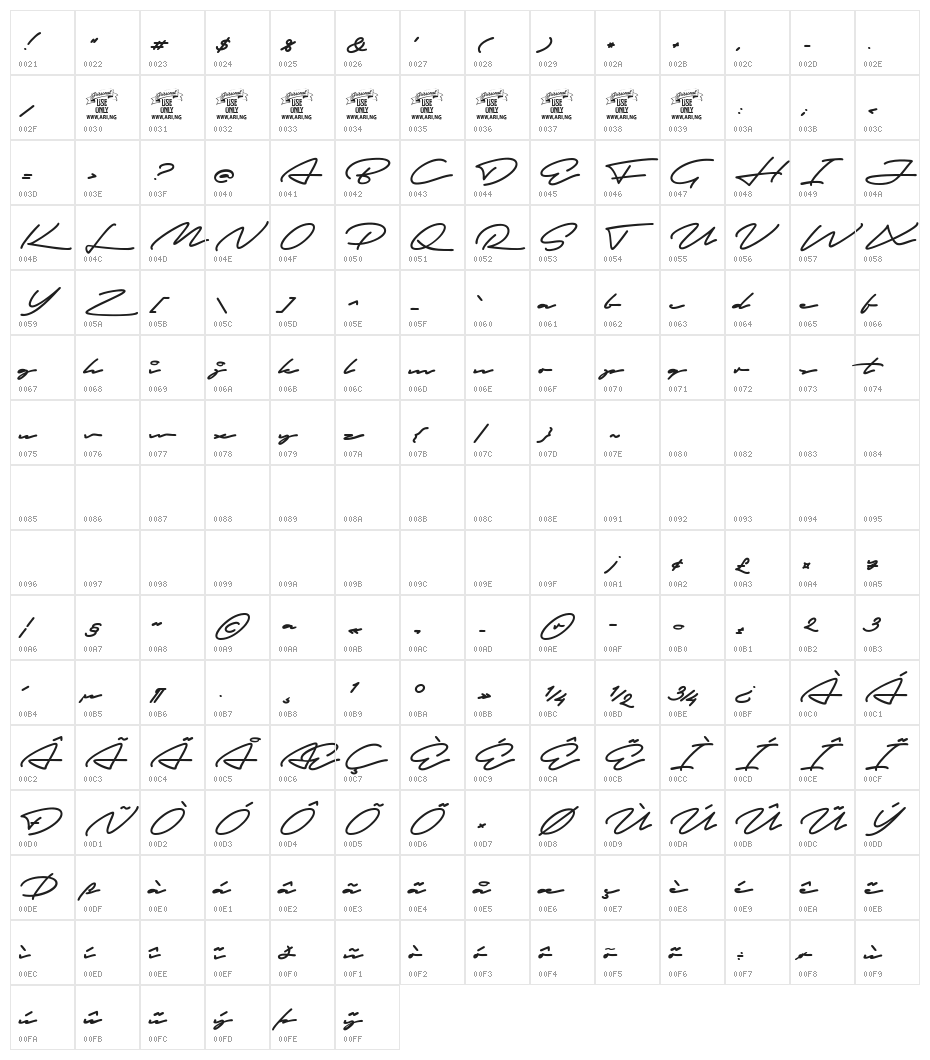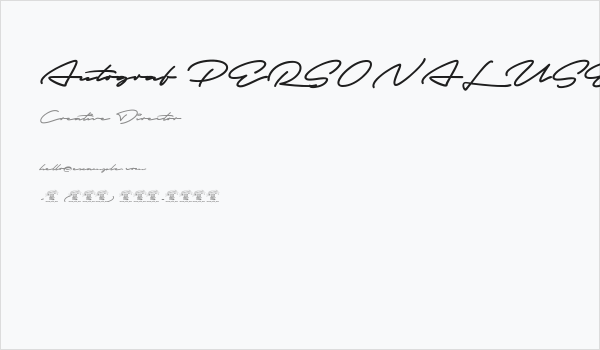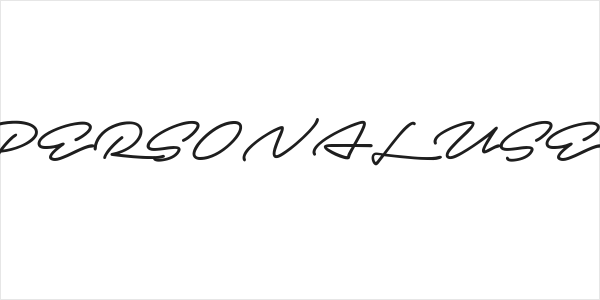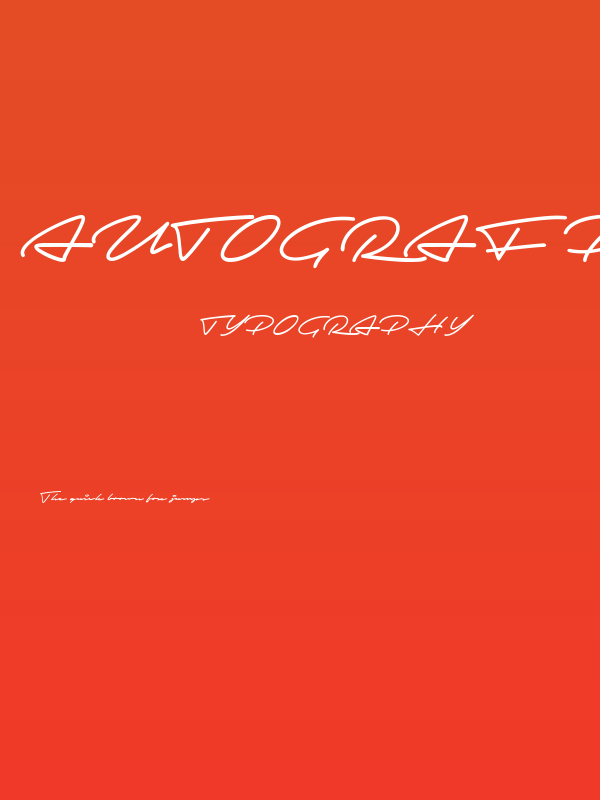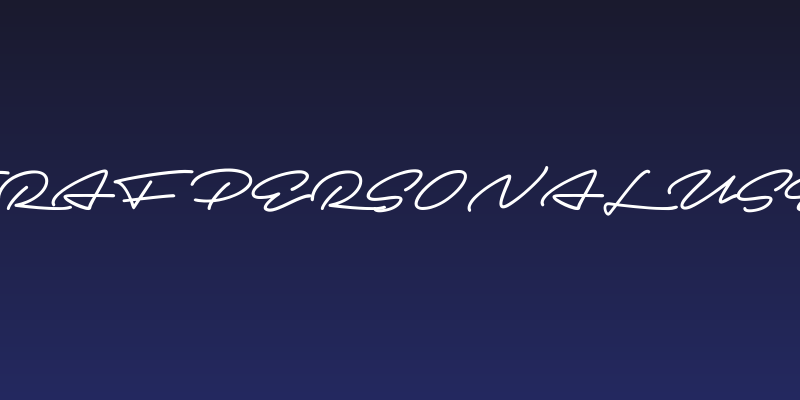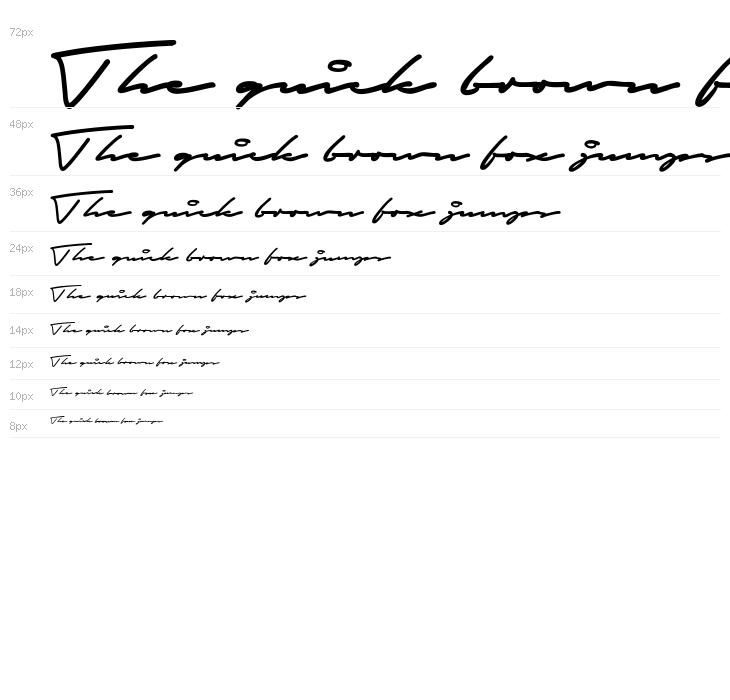
Autograf PERSONAL USE ONLY Font
Autograf PERSONAL USE ONLY Description
This font features an elegant, flowing script style that mimics the fluidity of handwriting. The uppercase letters are characterized by their sweeping curves and loops, giving them a sophisticated and artistic appearance. The lowercase letters maintain a consistent flow, with some characters featuring unique flourishes that add to the overall aesthetic. The numbers and special characters are designed to complement the letters, maintaining the same graceful style. This font is ideal for projects that require a personal touch, such as invitations, greeting cards, or branding materials that aim to convey elegance and creativity.
| Overall Style | Elegant, Artistic |
| Proposed Projects | Ideal for wedding invitations, personal branding, greeting cards, and artistic projects. |